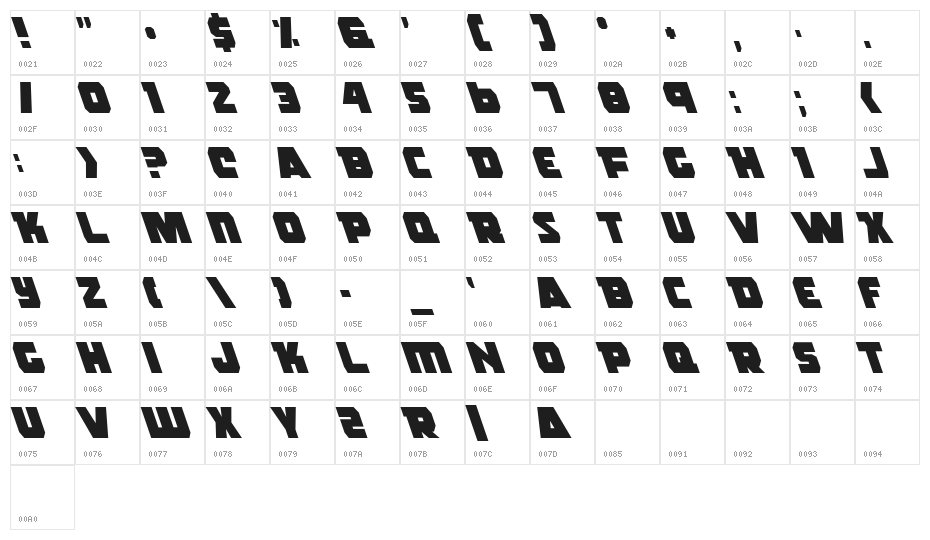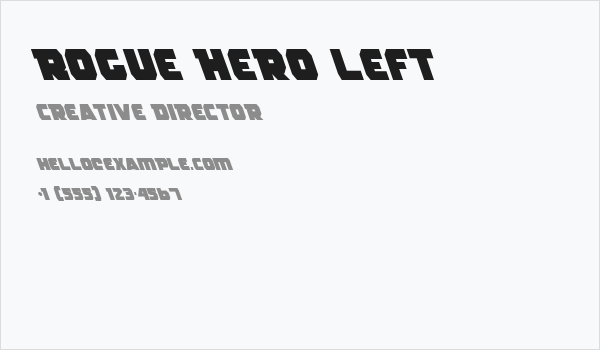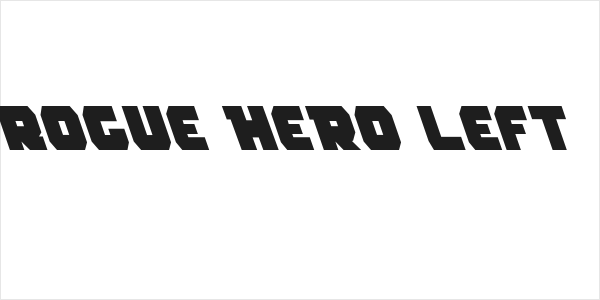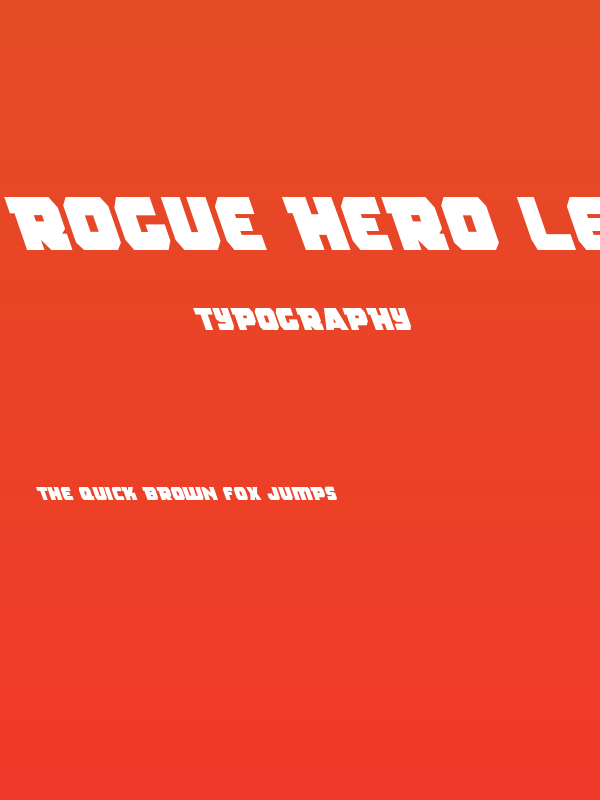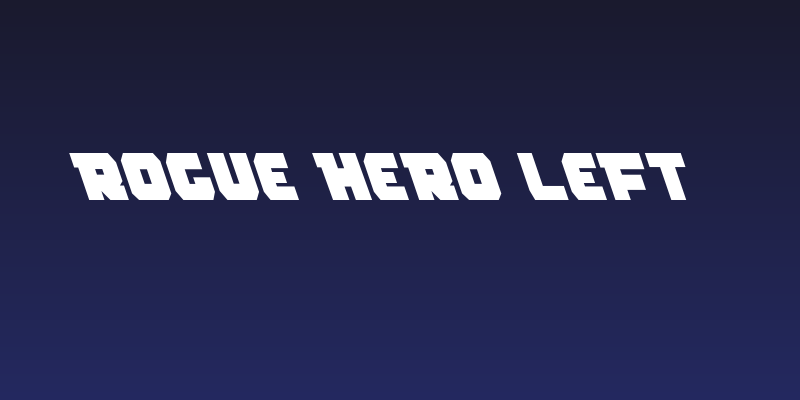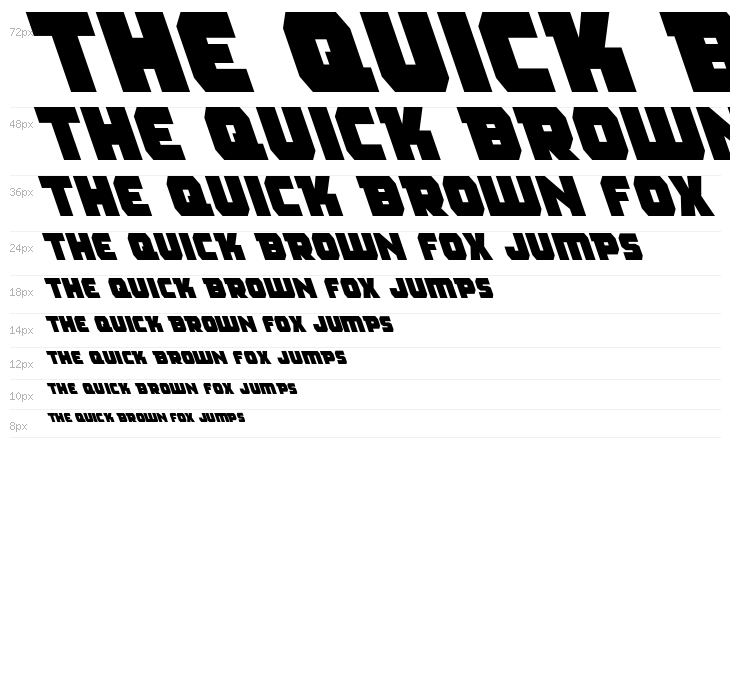
Rogue Hero Left Font
Rogue Hero Left Description
This font features a bold and angular design, characterized by its strong geometric shapes and sharp edges. The letters are heavily stylized, with a distinct slant that gives them a dynamic and forward-moving appearance. The uppercase and lowercase letters maintain a consistent style, while the numbers and special characters follow the same bold and impactful design. This font's unique style makes it stand out, with a futuristic and slightly aggressive look that commands attention.
| Overall Style | Futuristic, Dynamic |
| Proposed Projects | Ideal for video game titles, movie posters, or any project requiring a bold, futuristic aesthetic. |